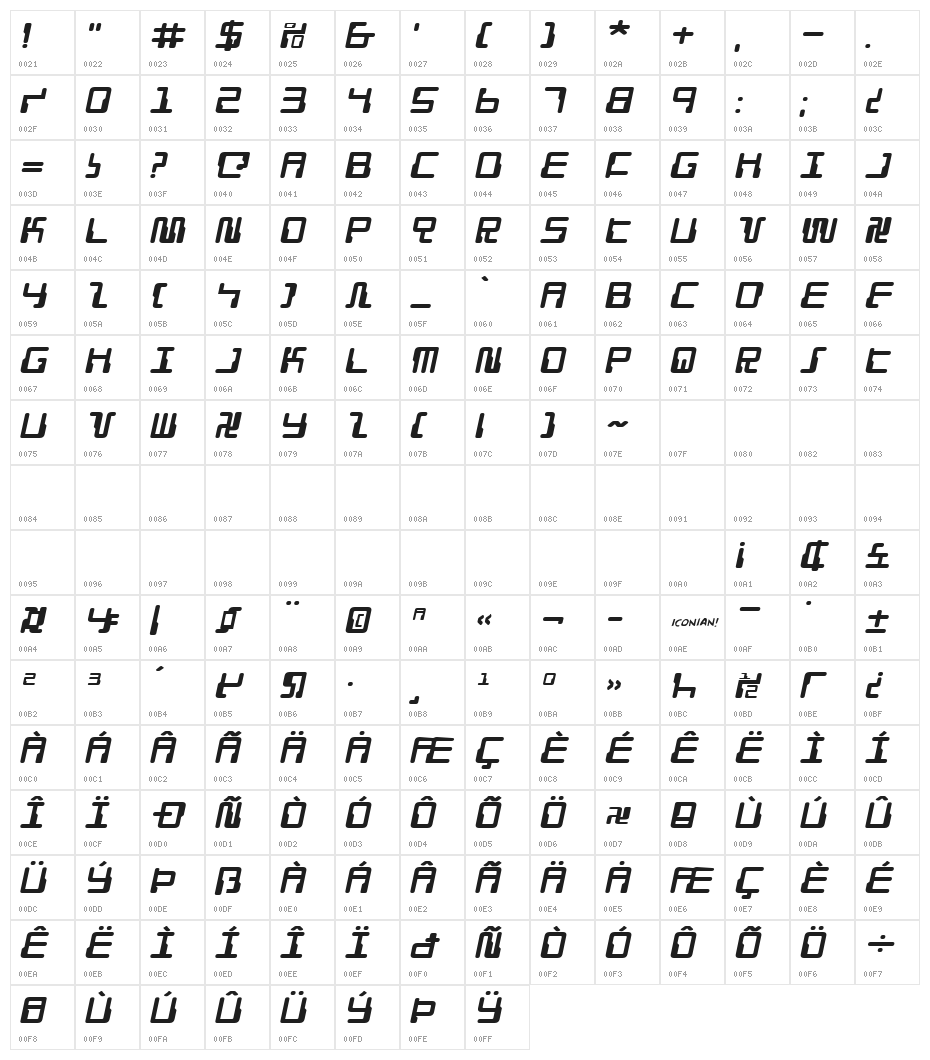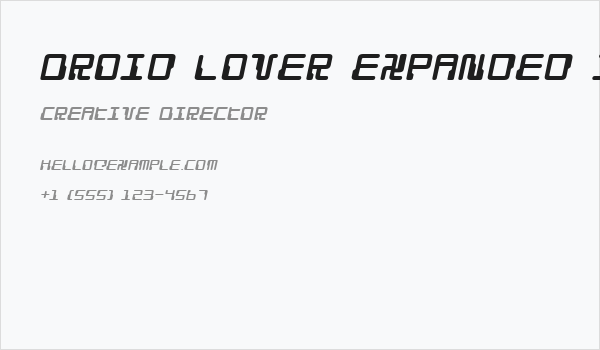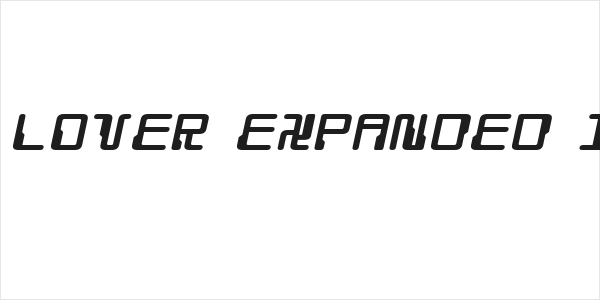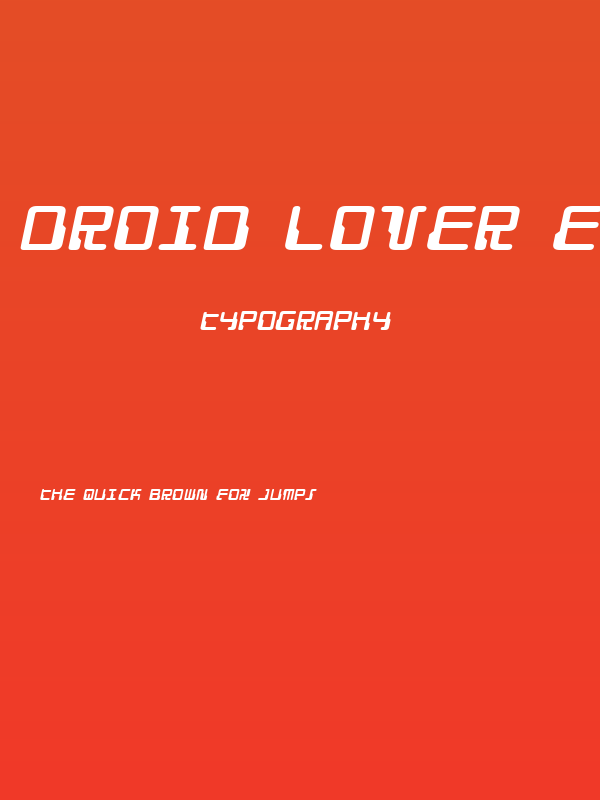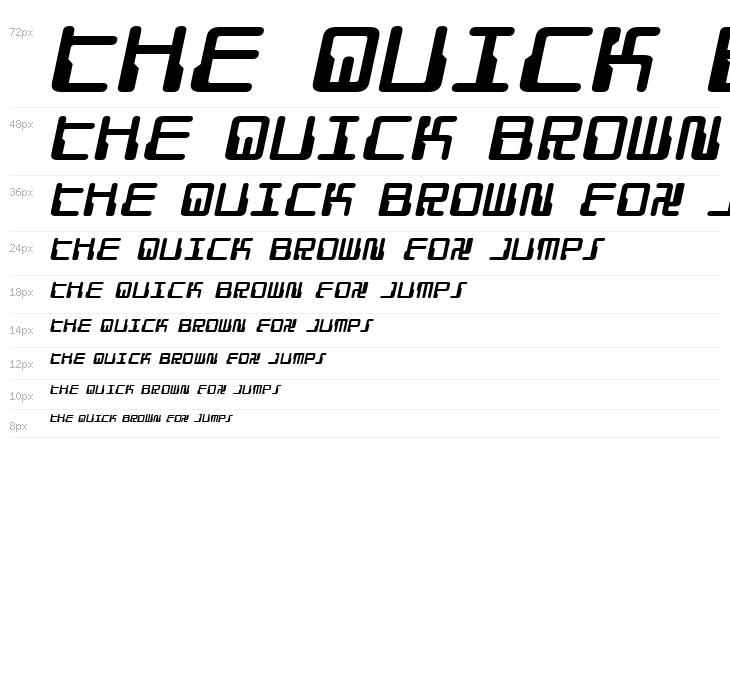
Droid Lover Expanded Italic Font
Droid Lover Expanded Italic Description
This font features a futuristic and tech-inspired design with an expanded and italicized style. The characters have a geometric structure with rounded edges, giving them a sleek and modern appearance. The uppercase and lowercase letters maintain a consistent style, with a slight slant that adds dynamism. The numbers and special characters are designed to match the overall aesthetic, ensuring uniformity across all elements. The font's expanded width allows for greater readability, making it suitable for various design applications where a modern and innovative look is desired.
| Use Case | Headlines, Logos, Digital Interfaces |
| Proposed Projects | Ideal for tech branding, sci-fi posters, video game titles, and modern digital interfaces. |